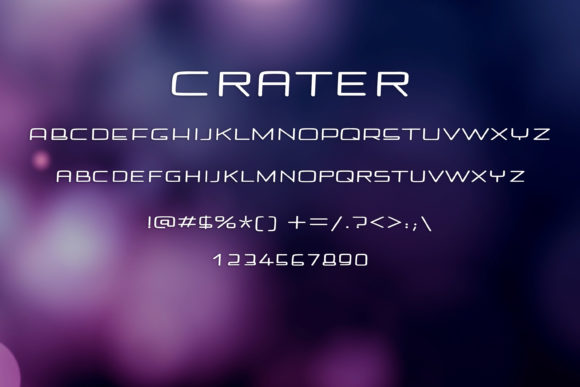
Unleash the Power of Crater Font: Elevate Your Designs to Futuristic Heights
In the realm of typography, few fonts manage to capture the essence of futurism and uniqueness as effectively as the Crater Font. This stunning display font is engineered to transform any design idea into a standout masterpiece, making it an indispensable tool for designers and crafters seeking to push the boundaries of creativity.
The Distinctive Charm of Crater Font
Crater Font boasts an incredibly unique and futuristic aesthetic that sets it apart from more conventional typefaces. Its design is characterized by bold, geometric shapes and a sense of avant-garde flair that immediately captures the viewer’s attention. Whether you’re working on a project that requires a touch of modernity, a dash of innovation, or simply something that stands out from the crowd, Crater Font is the perfect choice.
Crafting Standout Designs with Crater Font
The versatility of Crater Font is one of its most compelling attributes. This font isn’t just limited to digital designs; it can be used across a wide range of mediums, from posters and flyers to websites and mobile apps. Its scalability ensures that it remains crisp and clear, regardless of the size, making it an excellent option for both print and digital projects.
Key Features of Crater Font:
- Unique and Futuristic Design: The geometric and somewhat abstract shapes of Crater Font give it a distinctly futuristic look that can add a cutting-edge feel to any design.
- Highly Versatile: Suitable for a wide range of projects, from digital interfaces to print materials.
- Scalability: Maintains clarity and impact at various sizes, making it perfect for anything from billboards to business cards.
- Easy to Read: Despite its futuristic design, Crater Font is surprisingly legible, ensuring your message gets across effectively.
Applications of Crater Font
The potential applications for Crater Font are vast and varied. Designers can use it to:
- Create Striking Logos: The unique design of Crater Font makes it an excellent choice for logos that need to stand out.
- Design Futuristic Websites: Add a modern touch to your website’s header, titles, or even the entire content.
- Craft Eye-Catching Posters and Flyers: Use Crater Font to draw attention and convey a sense of innovation and forward-thinking.
- Develop Mobile Apps: Enhance your app’s UI with a font that communicates sleekness and modernity.
Tips for Using Crater Font Effectively
To maximize the impact of Crater Font, consider the following tips:
- Pair with Simpler Fonts: For body text, pair Crater Font with a simpler, more readable font to create visual hierarchy.
- Experiment with Colors: Don’t be afraid to try out different colors and gradients that complement the futuristic vibe of Crater Font.
- Consider Size and Weight: Play with different sizes and weights of Crater Font to add depth and emphasis to your design.
| Font Name | Crater Font |
| Author | dmytroyarish |
Crater Font is more than just a typeface; it’s a design statement. Its unique blend of futurism and readability makes it an invaluable asset for designers and crafters looking to elevate their projects. Whether you’re aiming to create a stunning display piece or simply want to add a touch of modernity to your design, Crater Font is sure to exceed your expectations. Embrace the power of Crater Font and transform your designs into futuristic masterpieces that captivate and inspire.